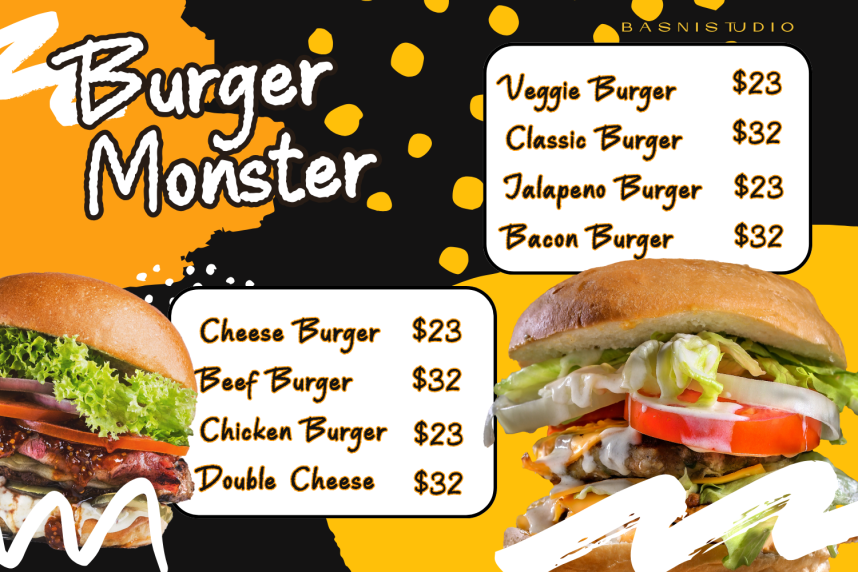
Blingkima – Handwritten Font
Blingkima – Handwritten Font crafted with authentic Brush for Natural & Casual touch for everything from branding and social media to invitations and packaging.